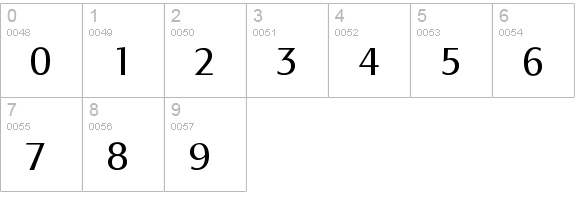
Signata Regular is the standard, neutral variant in the Signata typeface family \xE2\x80\x94 well suited to general body text, paragraphs, and standard typographic work.
Signata Regular is a modern and versatile font that combines elegance with functionality. Its clean lines and balanced proportions make it the perfect choice for a wide range of design projects, from branding and advertising to packaging and web design. With its timeless appeal, Signata Regular is suitable for both traditional and contemporary designs. Its legibility ensures that your message will be easily conveyed to your audience, while its subtle details add a touch of sophistication. This font is freely available to download at FontsMarket.com, making it accessible to designers of all levels. Whether you are a seasoned professional or just starting out, Signata Regular offers you the opportunity to create stunning designs without any limitations. The versatility of Signata Regular is further enhanced by its extensive character set, which includes uppercase and lowercase letters, numbers, punctuation marks, and special characters. This allows you to fully express your creativity and add unique touches to your designs. Whether you are working on a logo, a website, a poster, or any other design project, Signata Regular will help you achieve a polished and professional look. Its sleek and modern aesthetic will captivate your audience and leave a lasting impression. Don't miss out on the opportunity to enhance your designs with Signata Regular. Download this font for free at FontsMarket.com and unlock its full potential. With Signata Regular, your designs will stand out from the crowd and make a lasting impact.